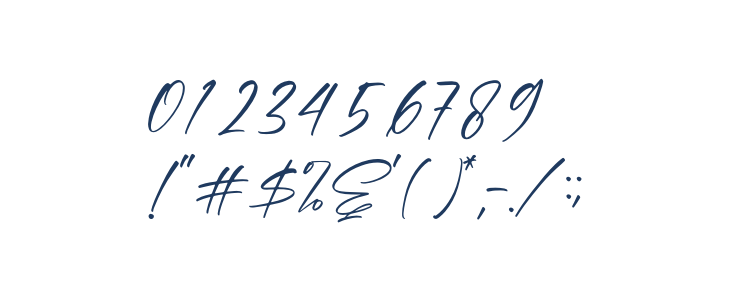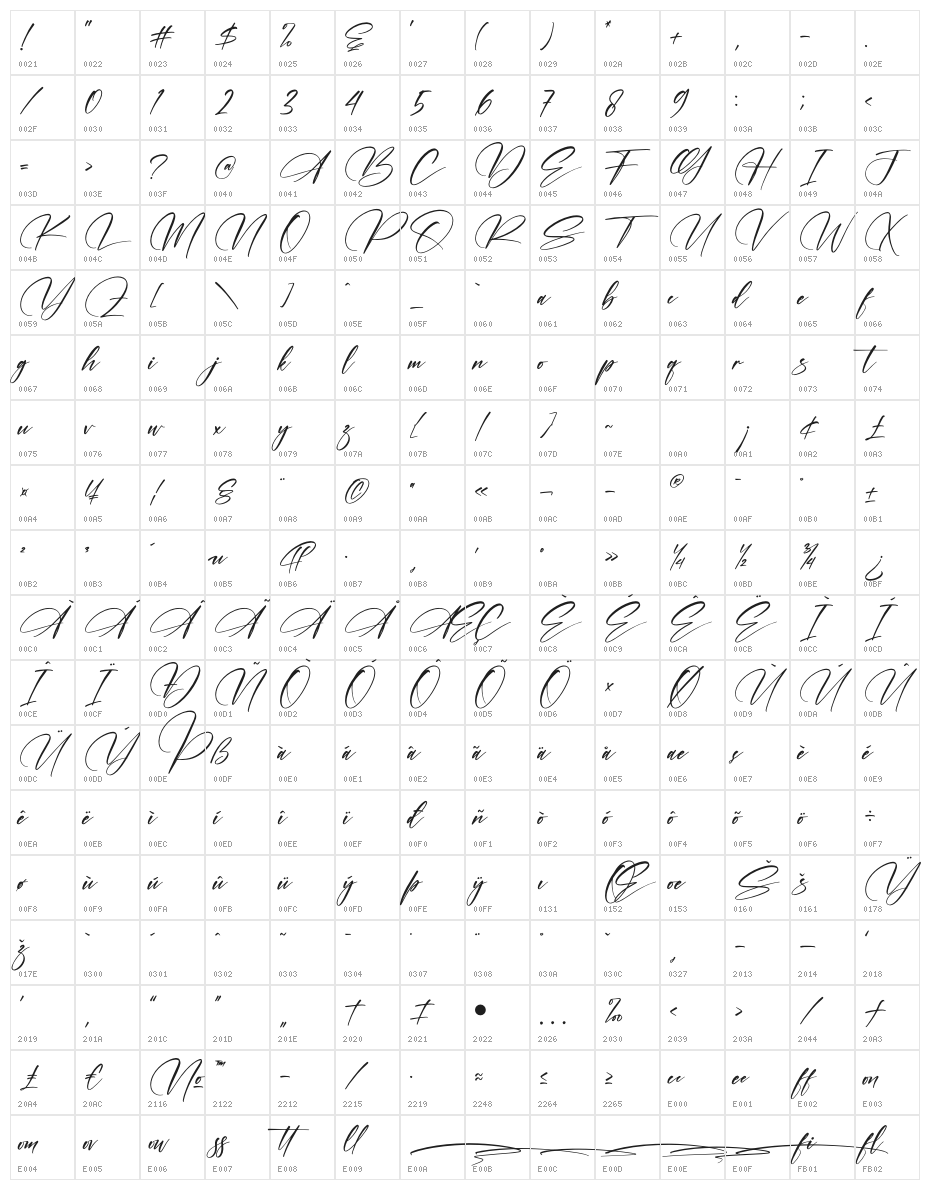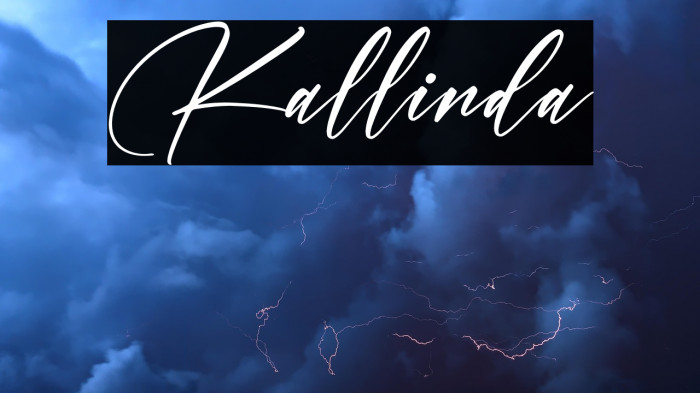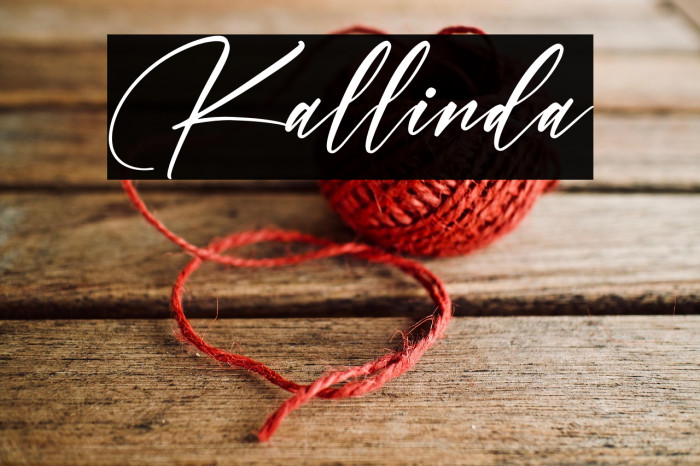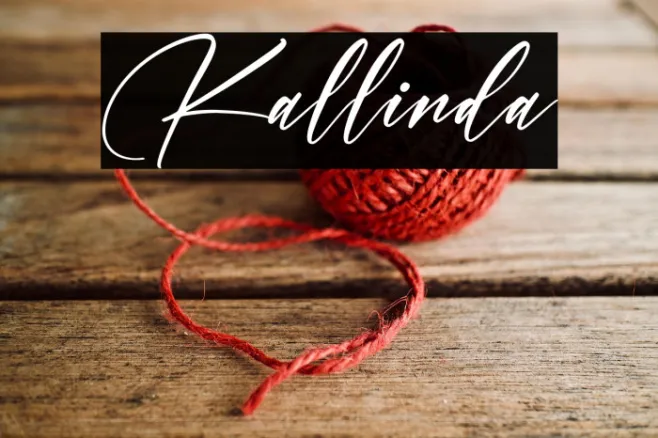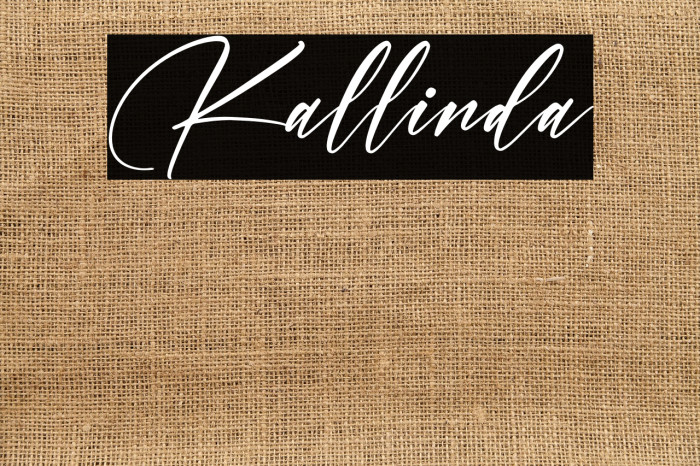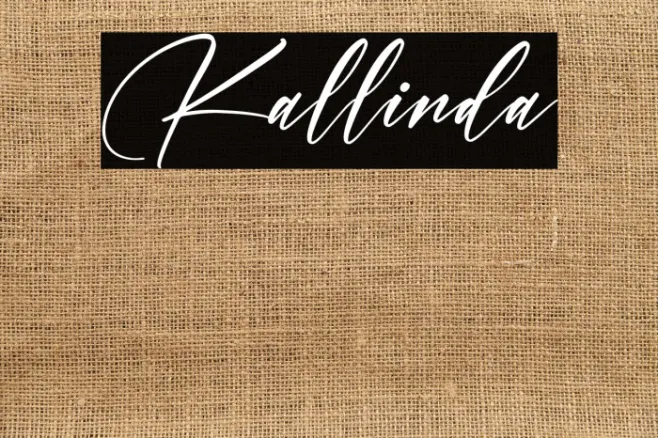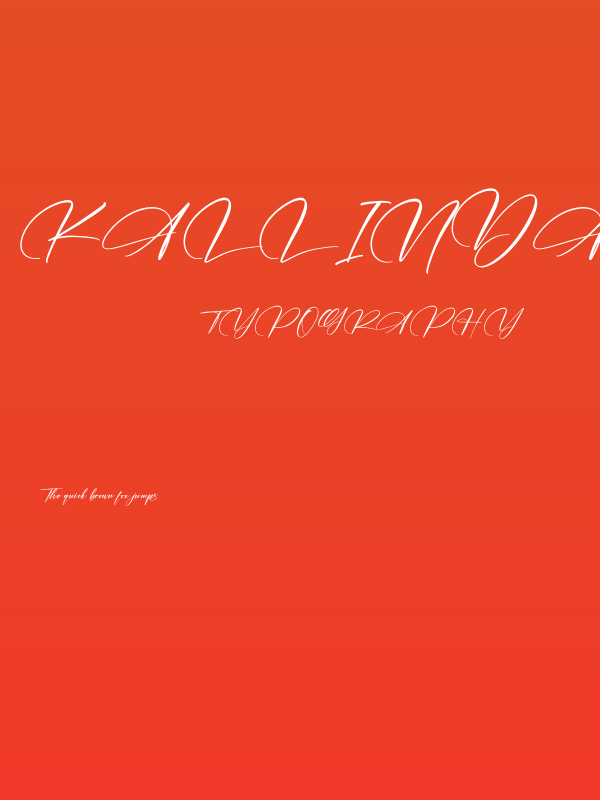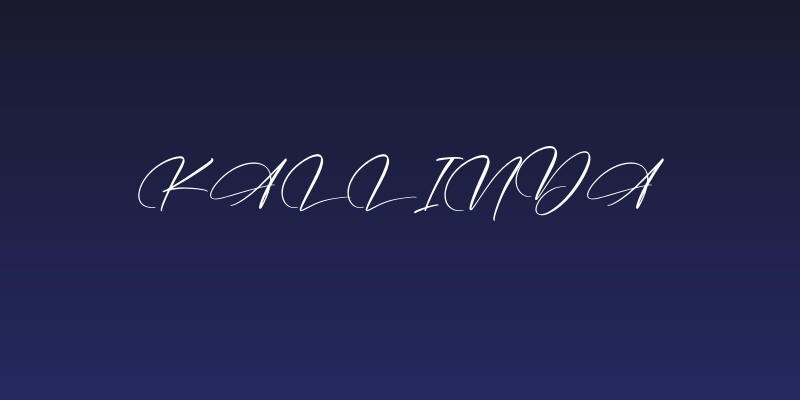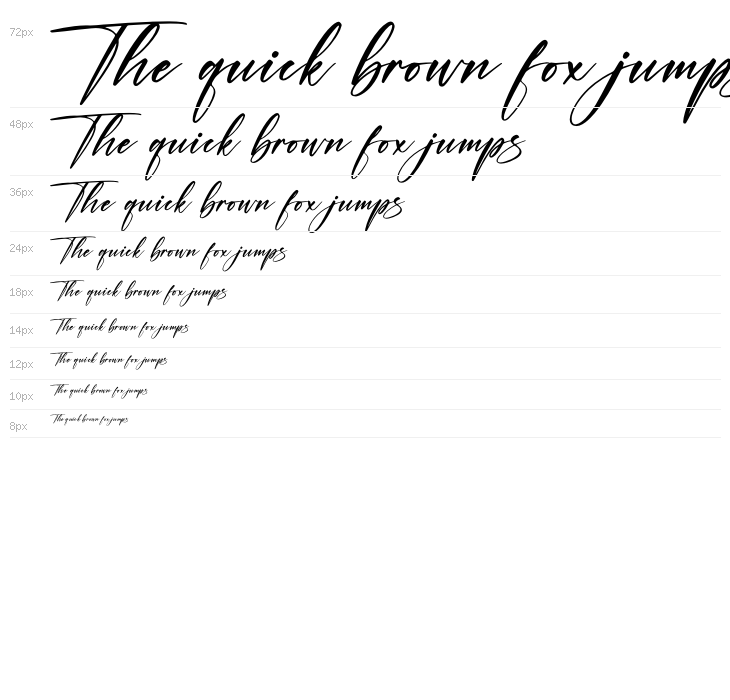
Kallinda Font
Kallinda Description
This elegant script font features a flowing, cursive style with smooth, interconnected letters that exude sophistication and grace. The uppercase letters are characterized by their sweeping curves and elongated forms, while the lowercase letters maintain a consistent rhythm with delicate loops and flourishes. The numerals are stylish and maintain the same fluidity, making them blend seamlessly with the alphabet. Special characters are thoughtfully designed to complement the overall aesthetic, adding a touch of flair. This font is perfect for projects that require a personal, handwritten touch, such as invitations, branding, and artistic designs.
| Use Case | Logos, Invitations, Artistic designs |
| Proposed Projects | Ideal for wedding invitations, branding, greeting cards, and artistic projects requiring a personal touch. |